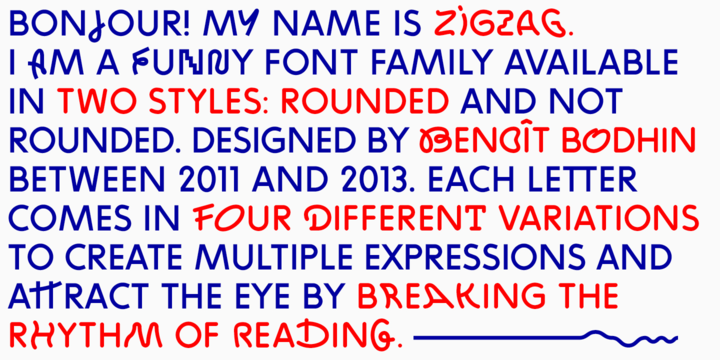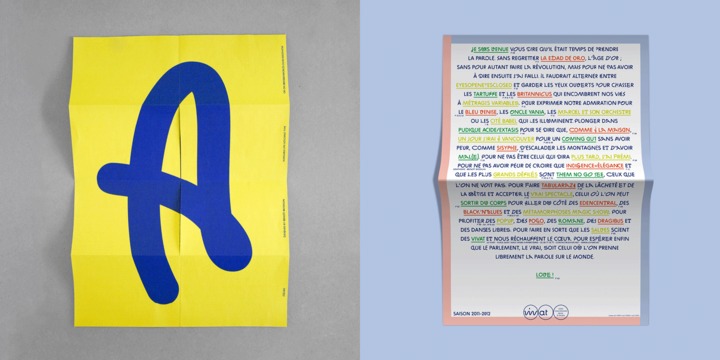
ZIGZAG is a funny font family whose letters have four varieties each in order to multiply expressions and attract the eye by breaking the rhythm of reading. There are two styles available Rounded and Not Rounded.
The variations oscillate between a hand-drawn design and a geometric or imaginative drawing. Opentype’s function lets you choose between different variations of each glyph and contextual variables allow to mix the styles.
ZIGZAG Rounded
ZIGZAG Not Rounded